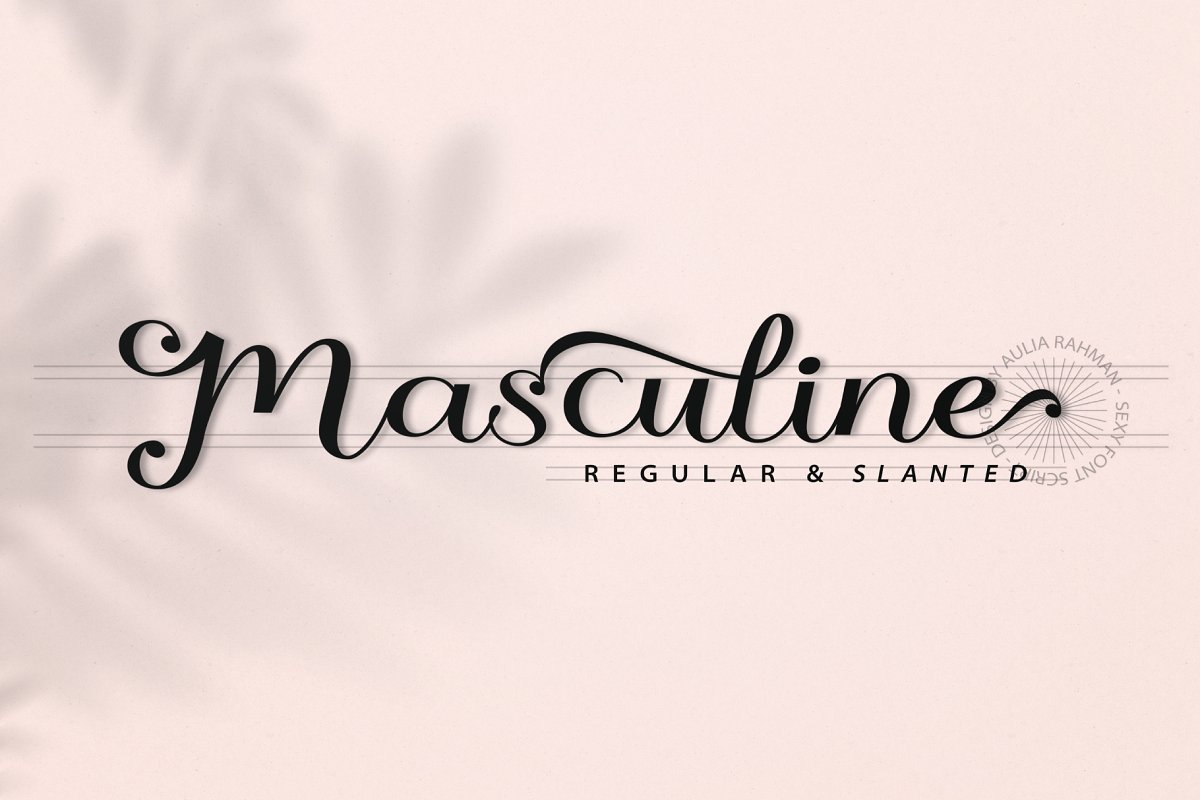
Masculine Script Font
Masculine Script Font was handwritten under the inspiration of modern calligraphy. It creates a luxurious and elegant look in design.
Masculine comes with Clean versions, beautiful uppercase, and lowercase alternates, ligatures and loved by many end-swashes. It has Multilingual support (Western European characters) and works with the following languages: English, Danish, Dutch, Estonian, Faroese, Filipino, Finnish, French, German, Hungarian, Indonesian, Icelandic, Irish, Italian, Norwegian, Polish, Portuguese, Spanish, Swedish.